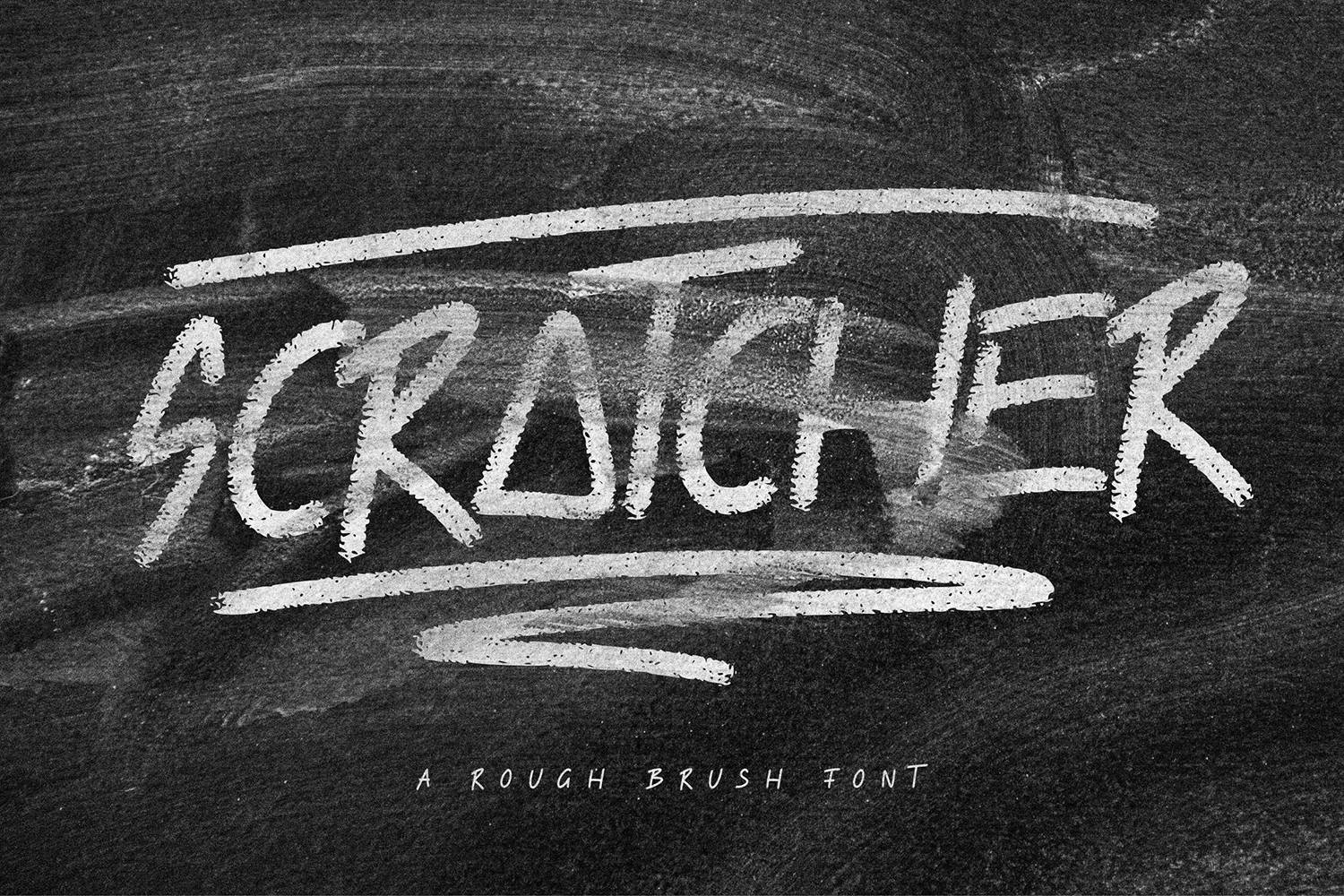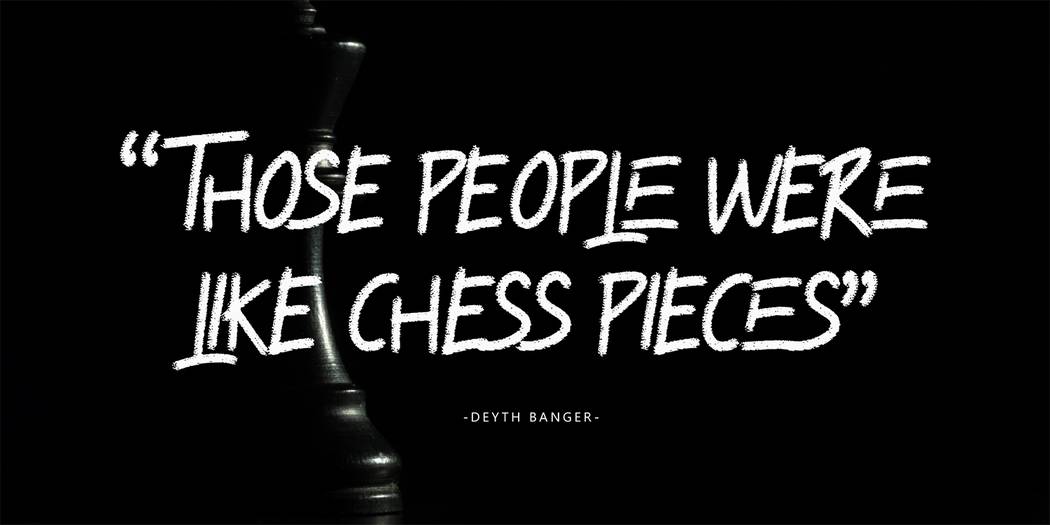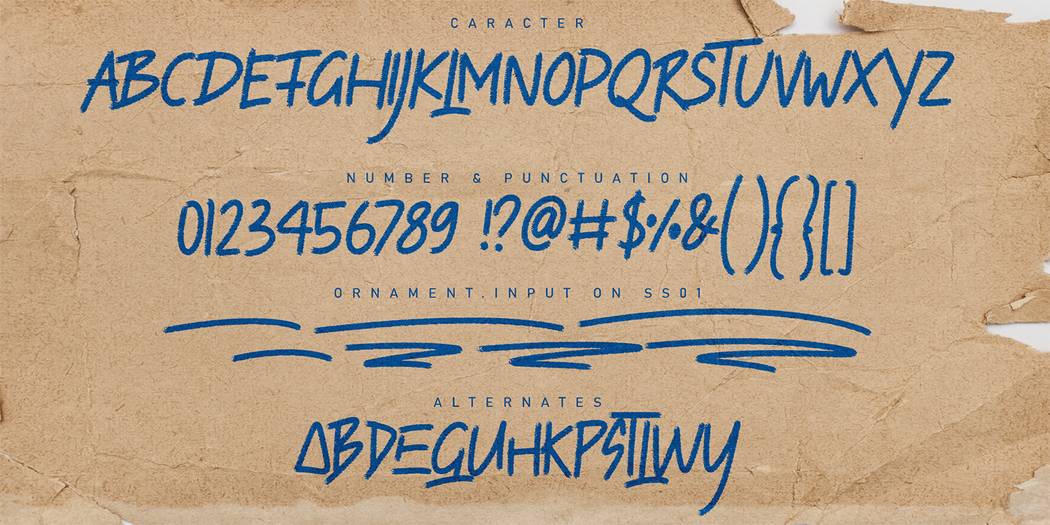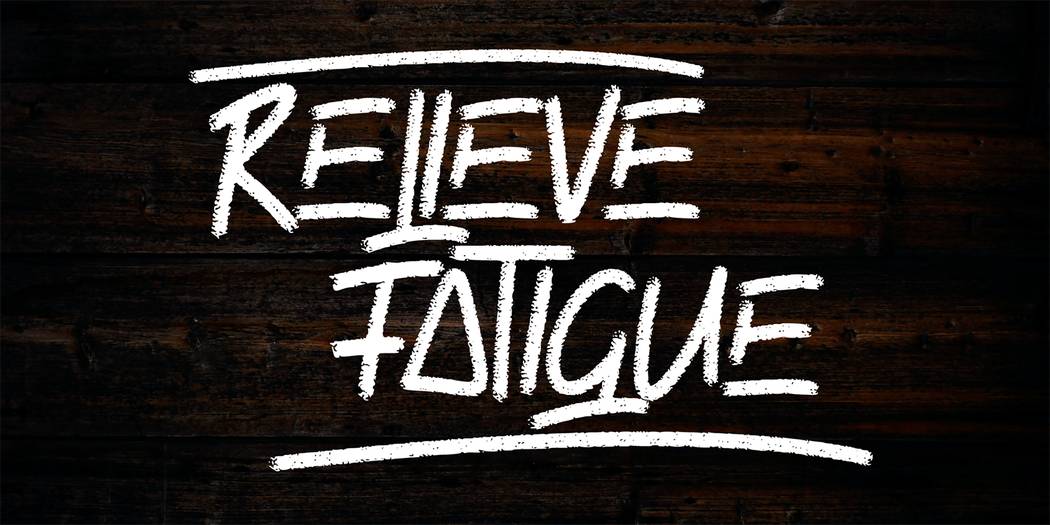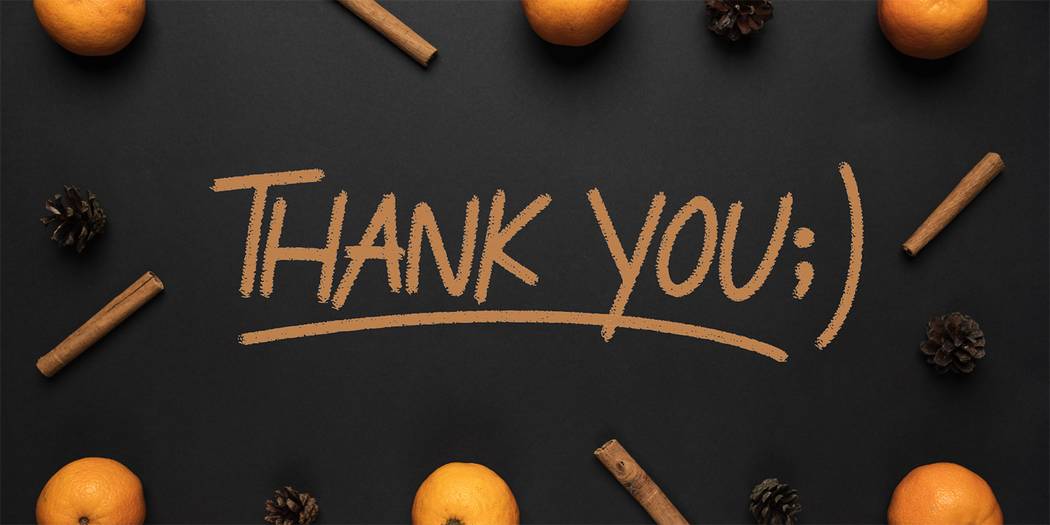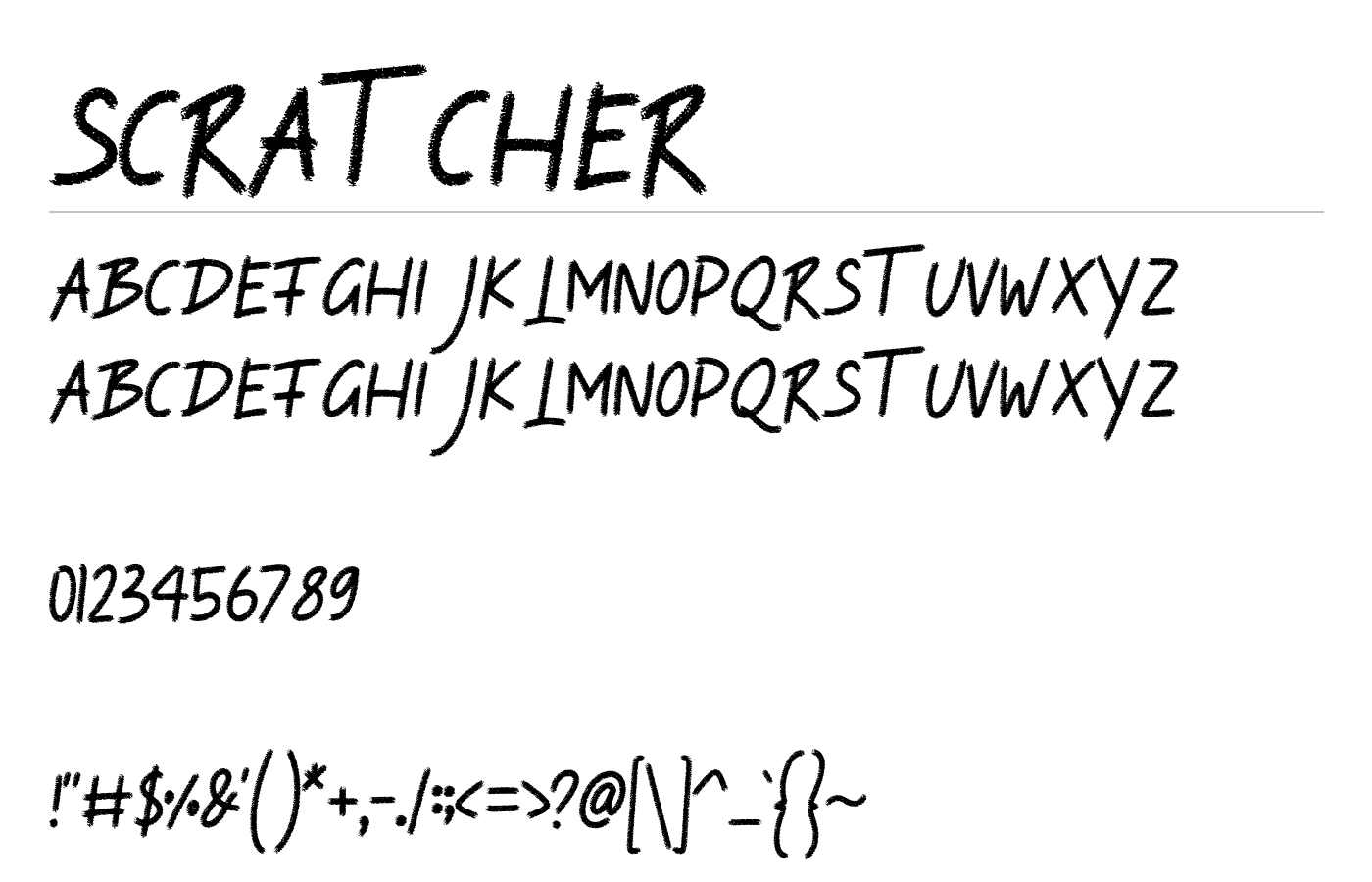
Scratcher is a lively, handwritten sans serif font with a rough, textured stroke that gives it an energetic and casual feel. Its narrow, slightly slanted letters and uneven edges make it perfect for creative, informal designs that want to convey personality and spontaneity. This font works well in playful branding, posters, and headlines where a dynamic, handcrafted look is desired.
Scratcher Font
About Scratcher Font
| Font family | Scratcher Font |
| Release date | 2023-01-31 |
| Designer | AKHMAD RIYAN DANUARTA |